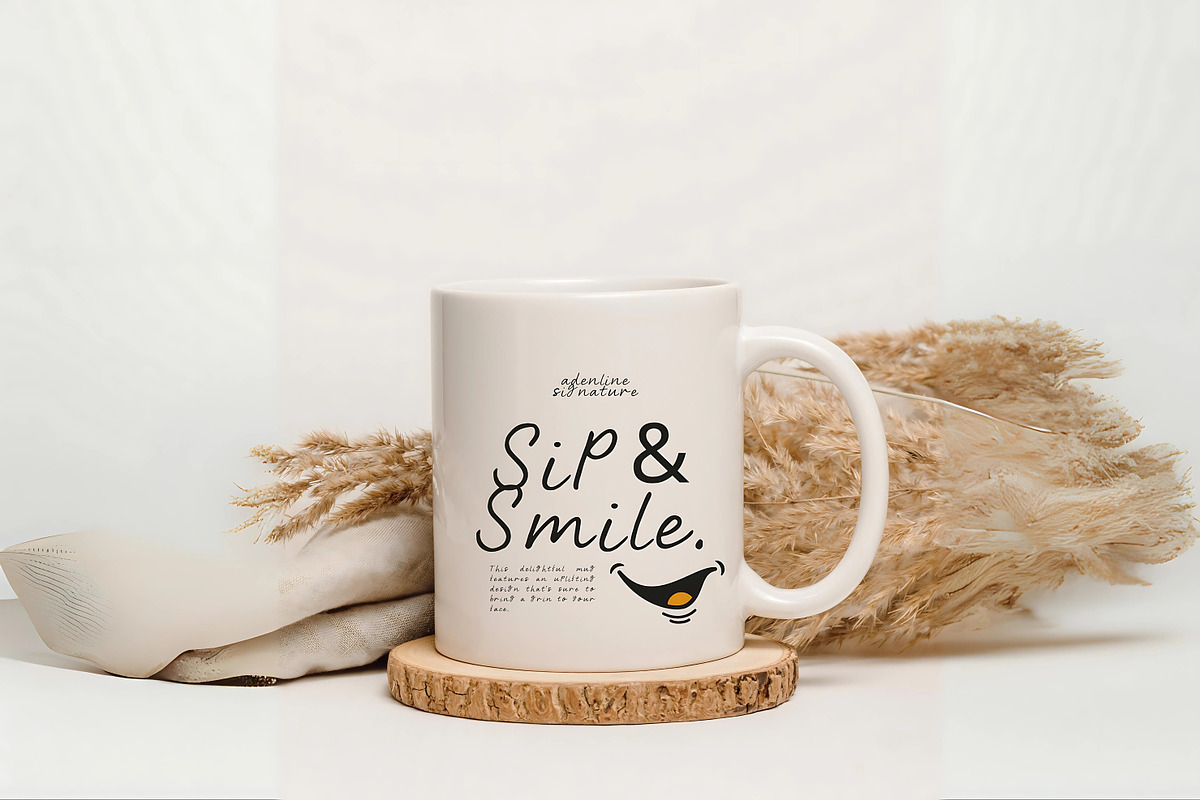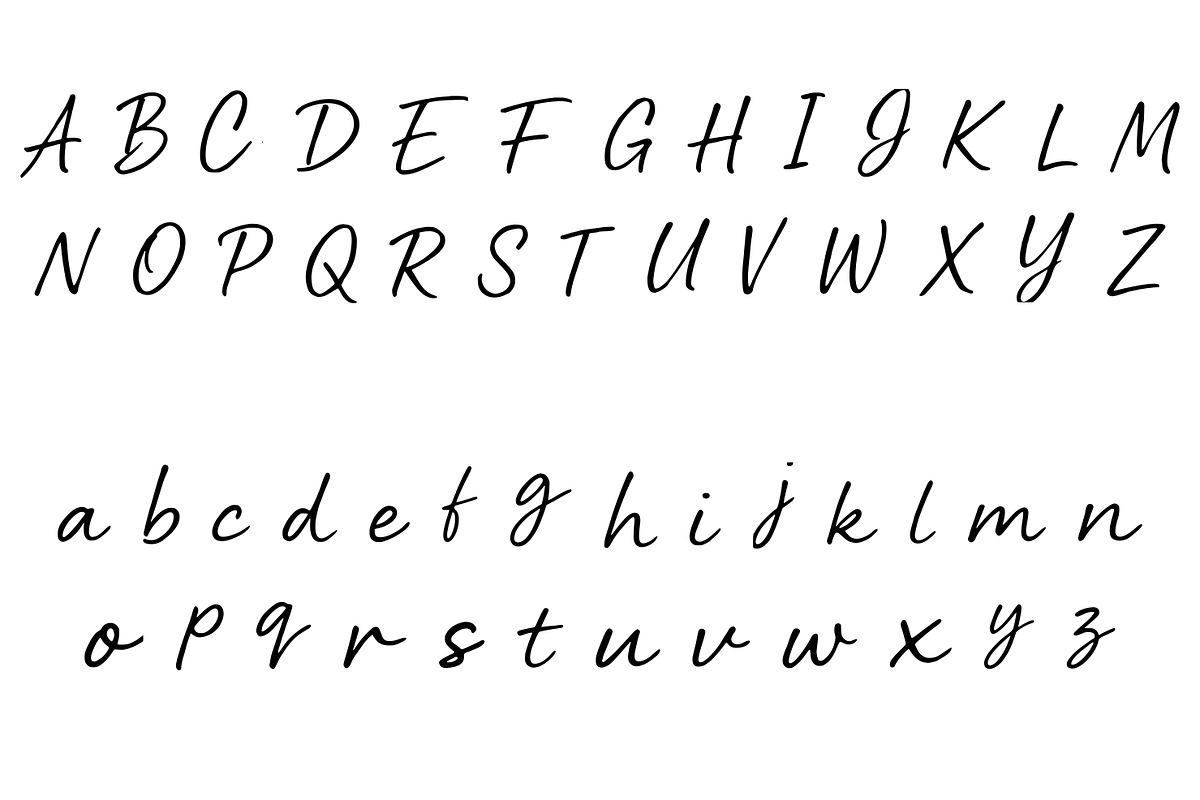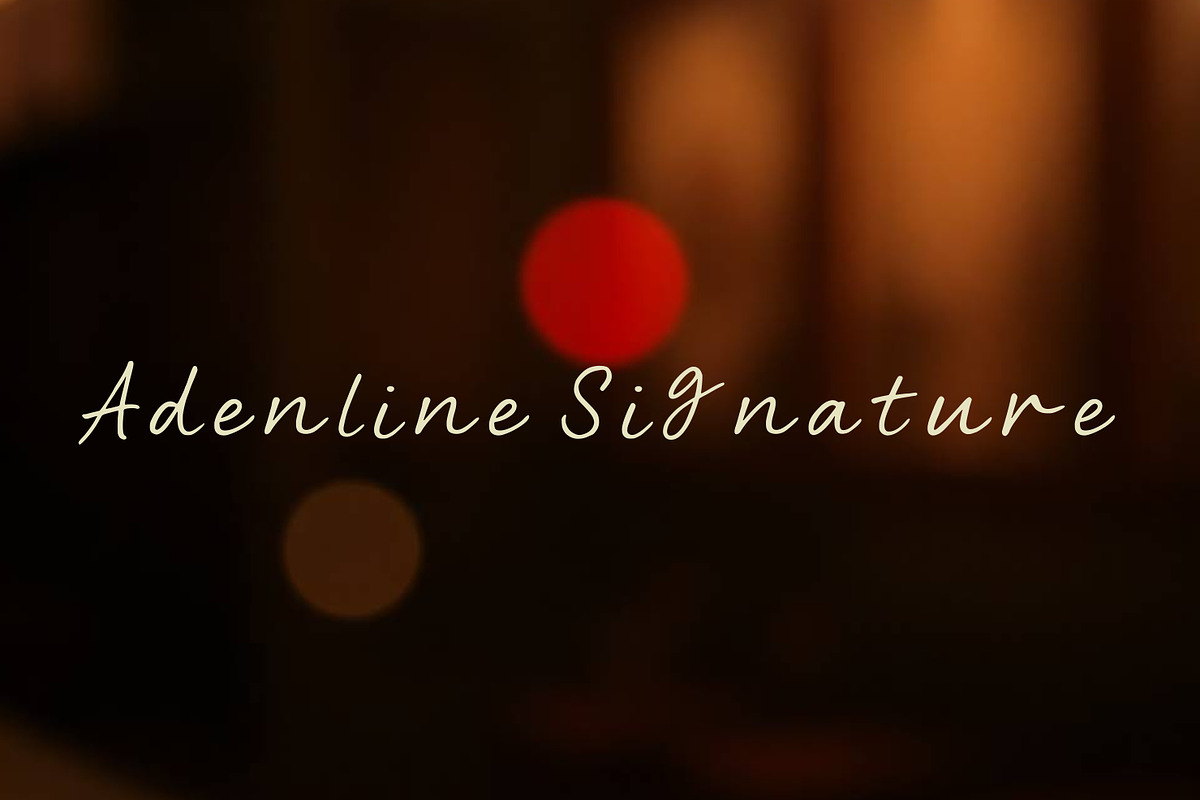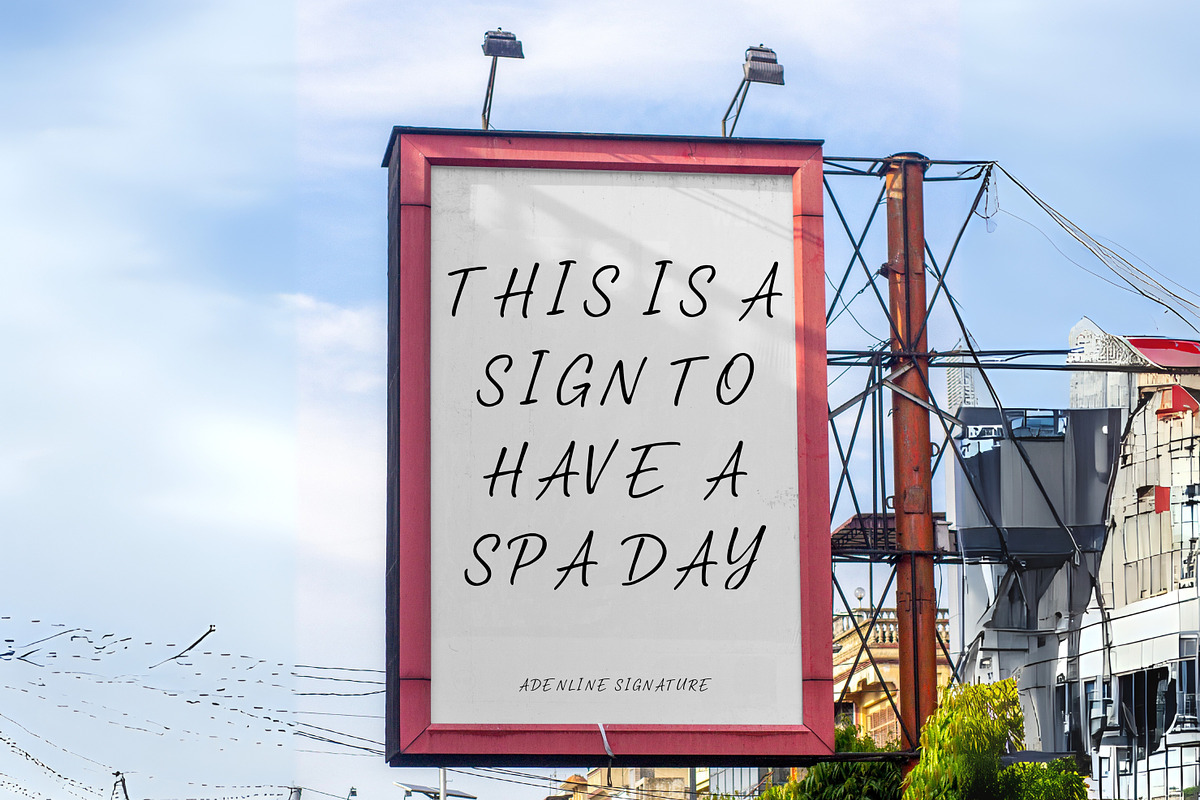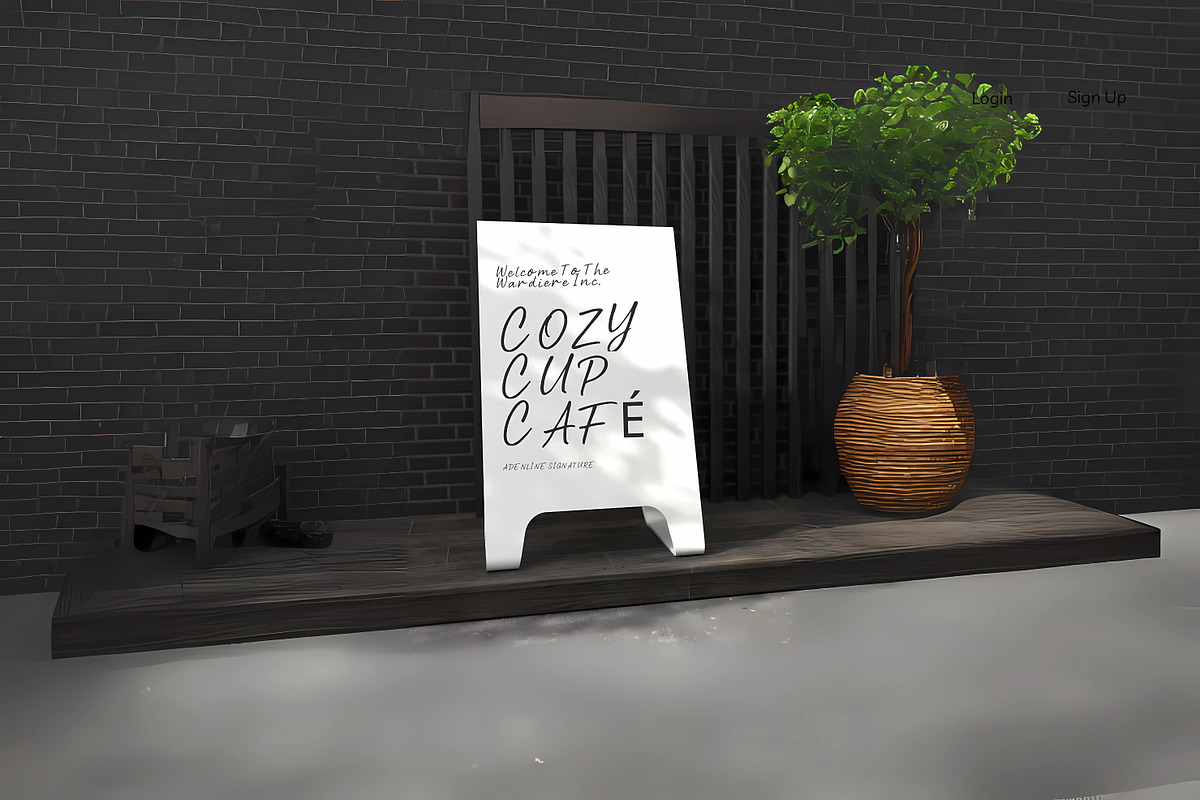
Adenline Signature – Handwring
Introducing Adenline – a stylish and elegant signature script font designed to bring a personal and handcrafted feel to your creative projects. Perfectly balancing softness and sophistication, Adenline captures the essence of modern calligraphy with its flowing curves and smooth lines.
Whether you're working on branding, wedding invitations, logos, social media posts, or packaging, Adenline adds a graceful, high-end touch that elevates any design.
Perfect for: Branding & Logos
Wedding Stationery
Quotes & Greeting Cards
Blog Headers and more!
Bring your ideas to life with the timeless beauty of Adenline.